Hey folks! I know this is a pretty common one from the 80s/90s. It’s a font from a Chyron generator. From what I’m aware, it could be from a Chyron 4100EXB, SuperScribe, or Infinit!. I’d love to know what the actual font name is though. Thanks in advance!
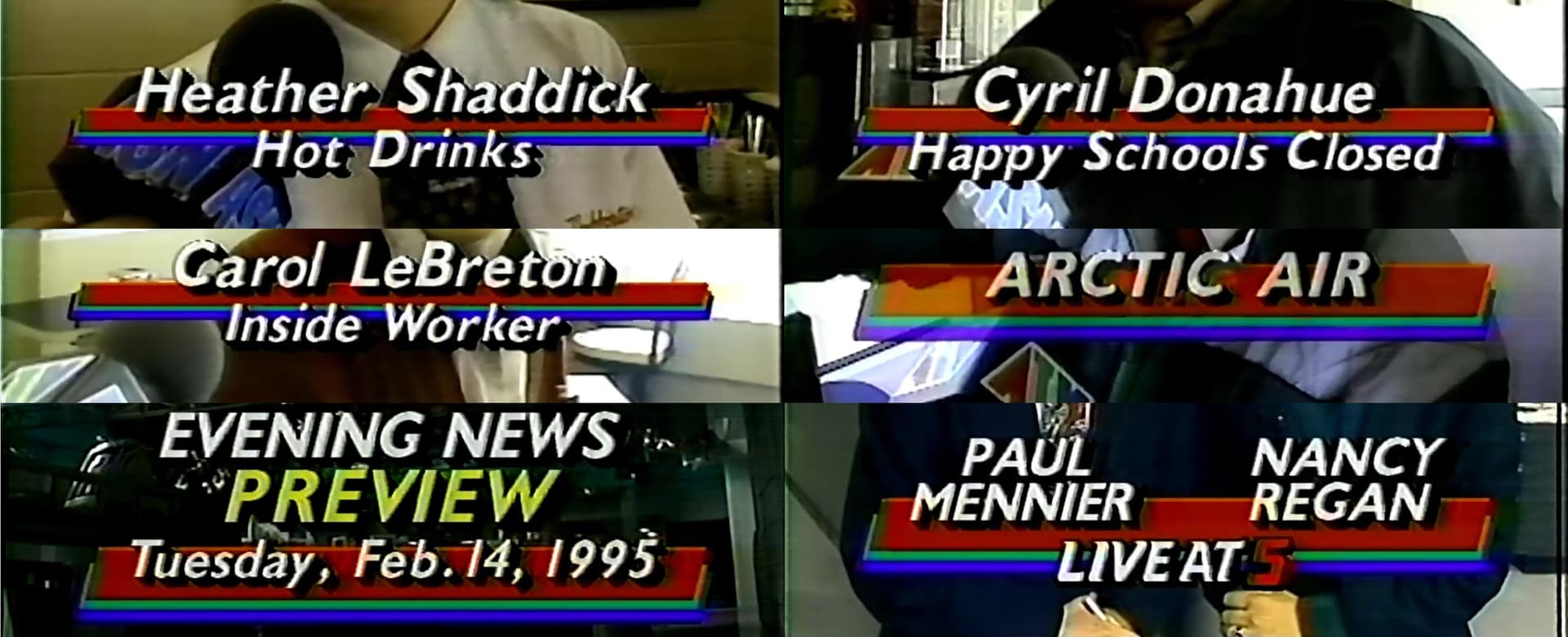
maybe it’s Gill Sans, Medium or Bold Italic, but the capital V and W in PREVIEW are too pointy for these font faces. Possibly the Light Italic font face was used and the Chyron program manually boldened it or something…
Thank you so much, Hondo! There are elements of ITC Johnston, Gill Sans and seemingly Arial (the lower case “a”, “t”, etc. incorporated into this font. I really wish there was a typeface list for Chyron’s old equipment. Thank you again!
“LIVE AT” looks like Crillee with a stroke and drop shadow or extrusion:
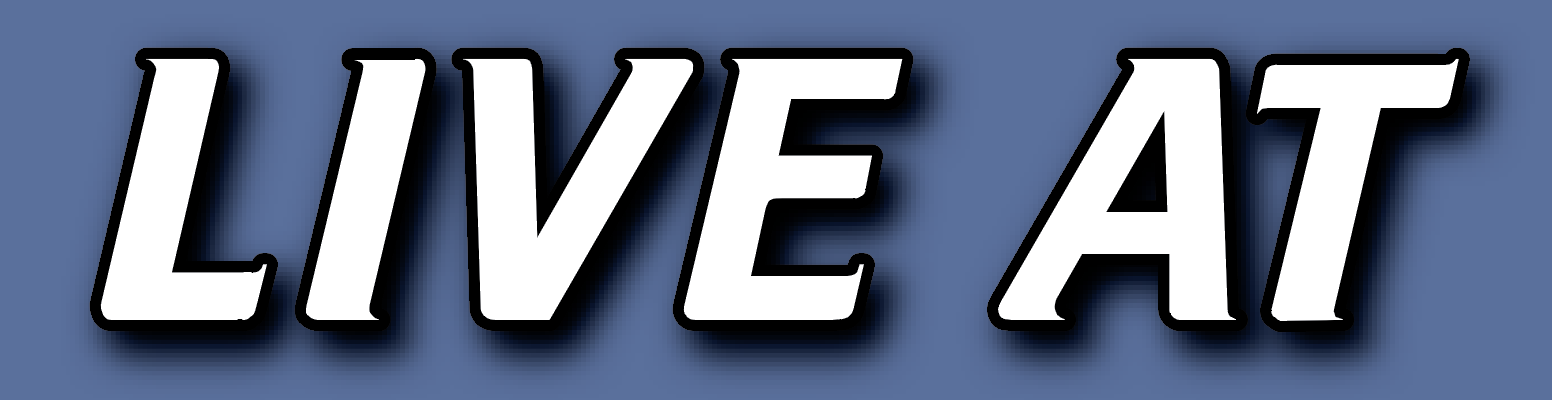
Correct! That was a VERY famous font in the 80s! Thank you!